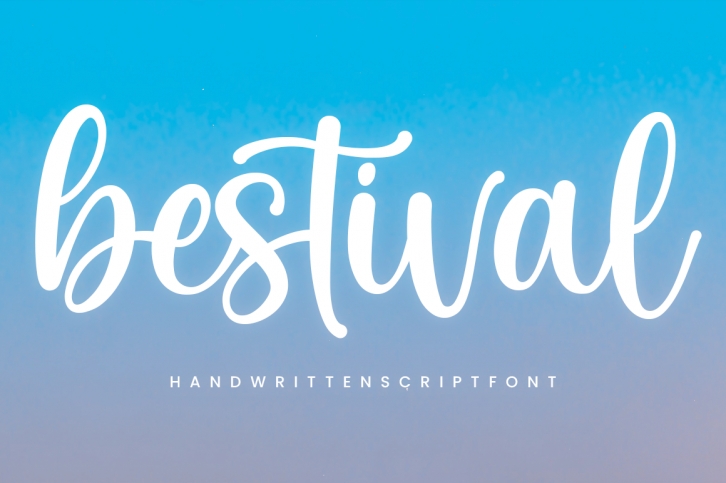
bestival is a lovely and delicate script font that exudes elegance and class. This font was particularly crafted for those who need a beautiful and refreshing look to their designs.